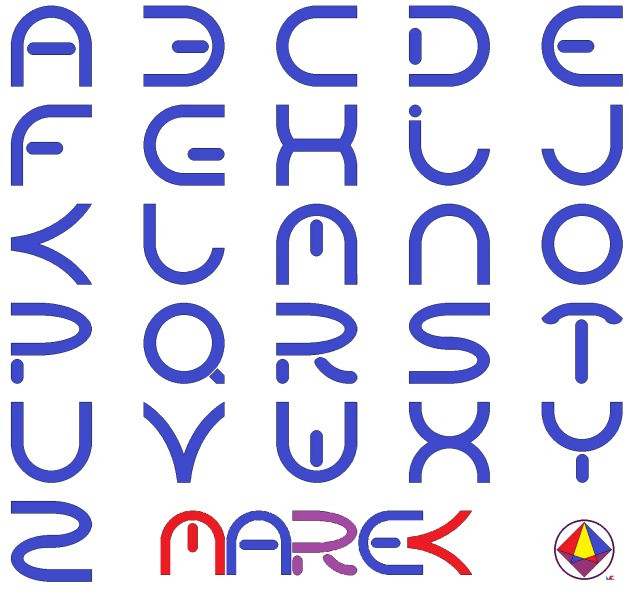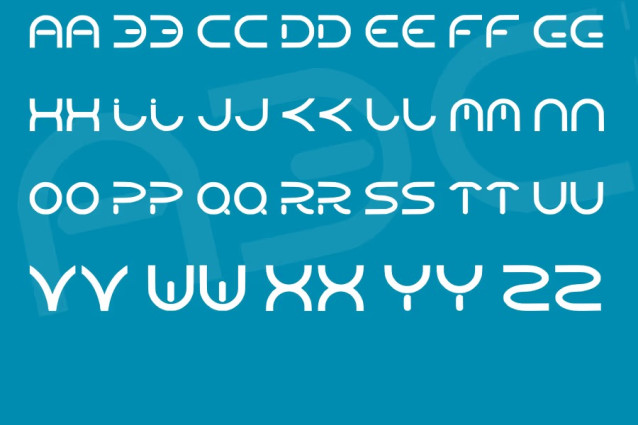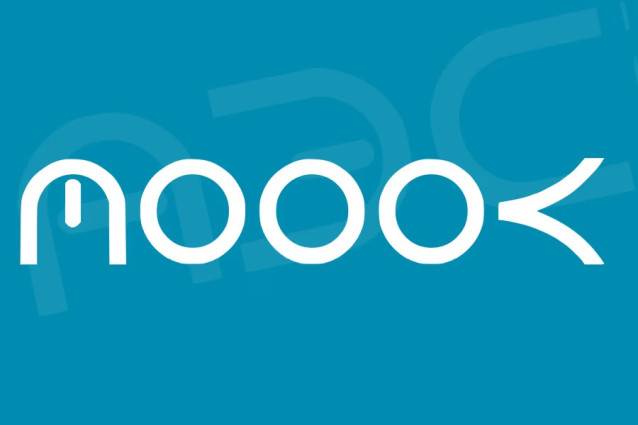
Moook Font is a simple and modern display font suitable for quotes, logos, headings, titles, and many more. Use it on any of your creative projects, and your designs will become outstanding!
Moook Font
| Designer Name: | Marek Kazimierczak |
| Classification: | Display Fonts, Modern Fonts |